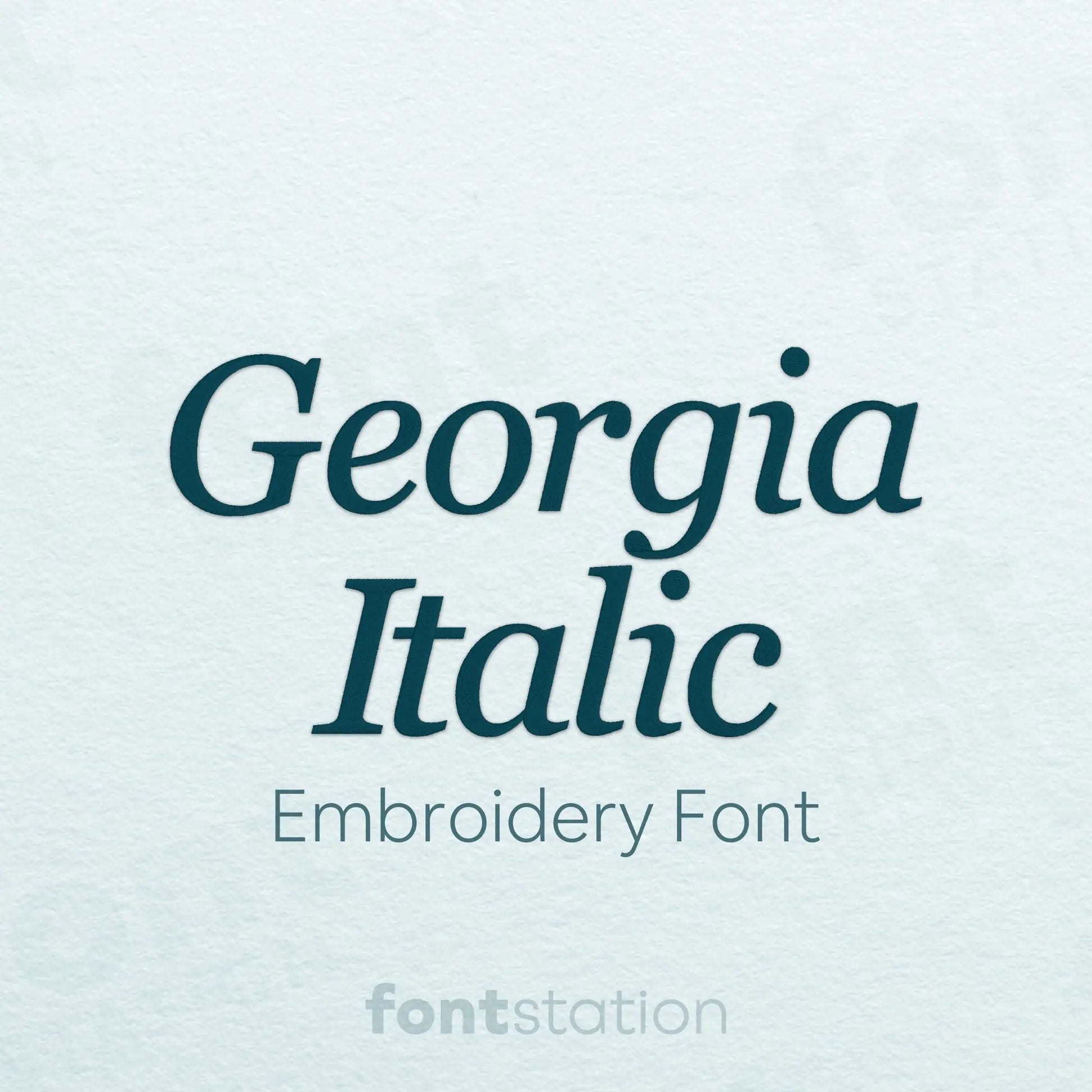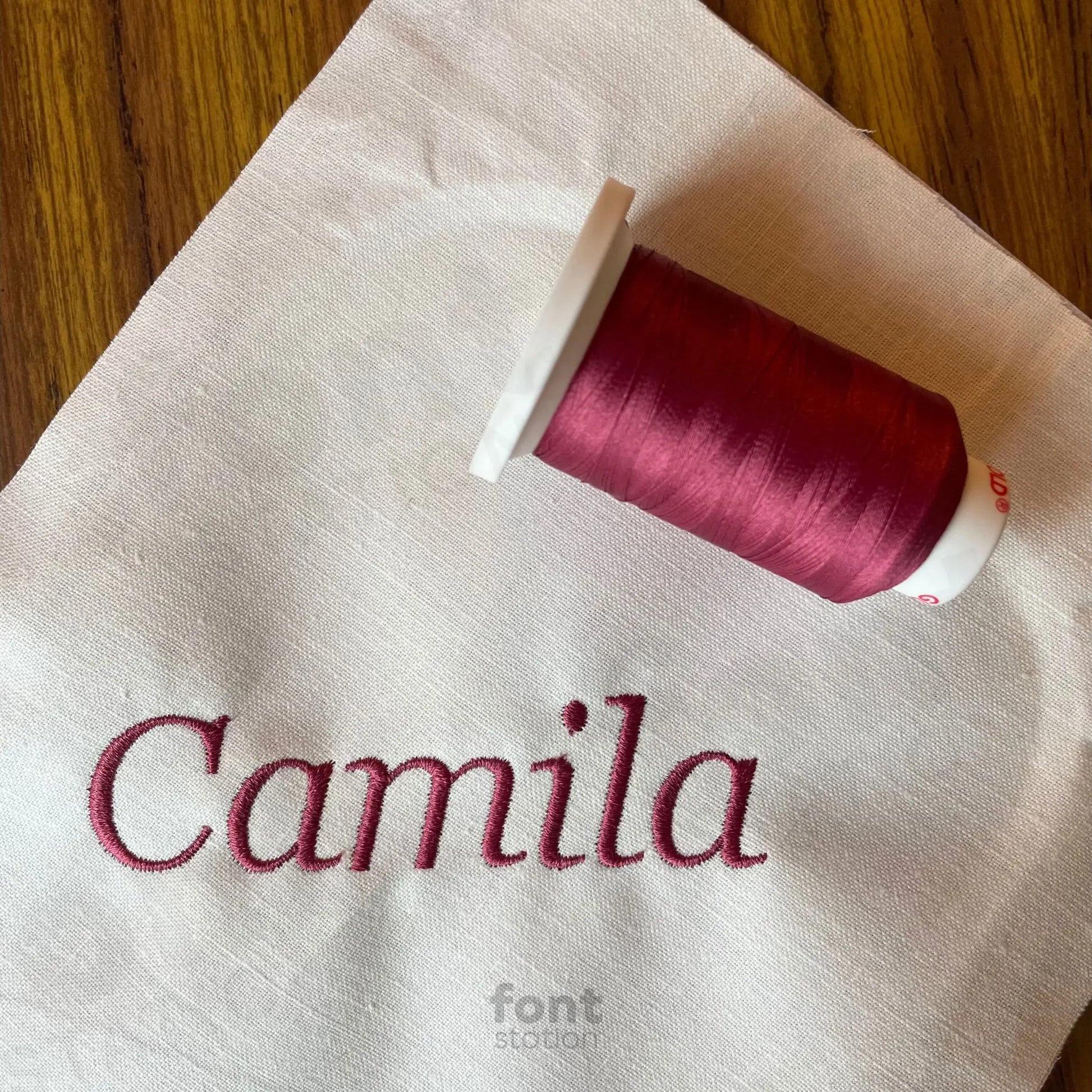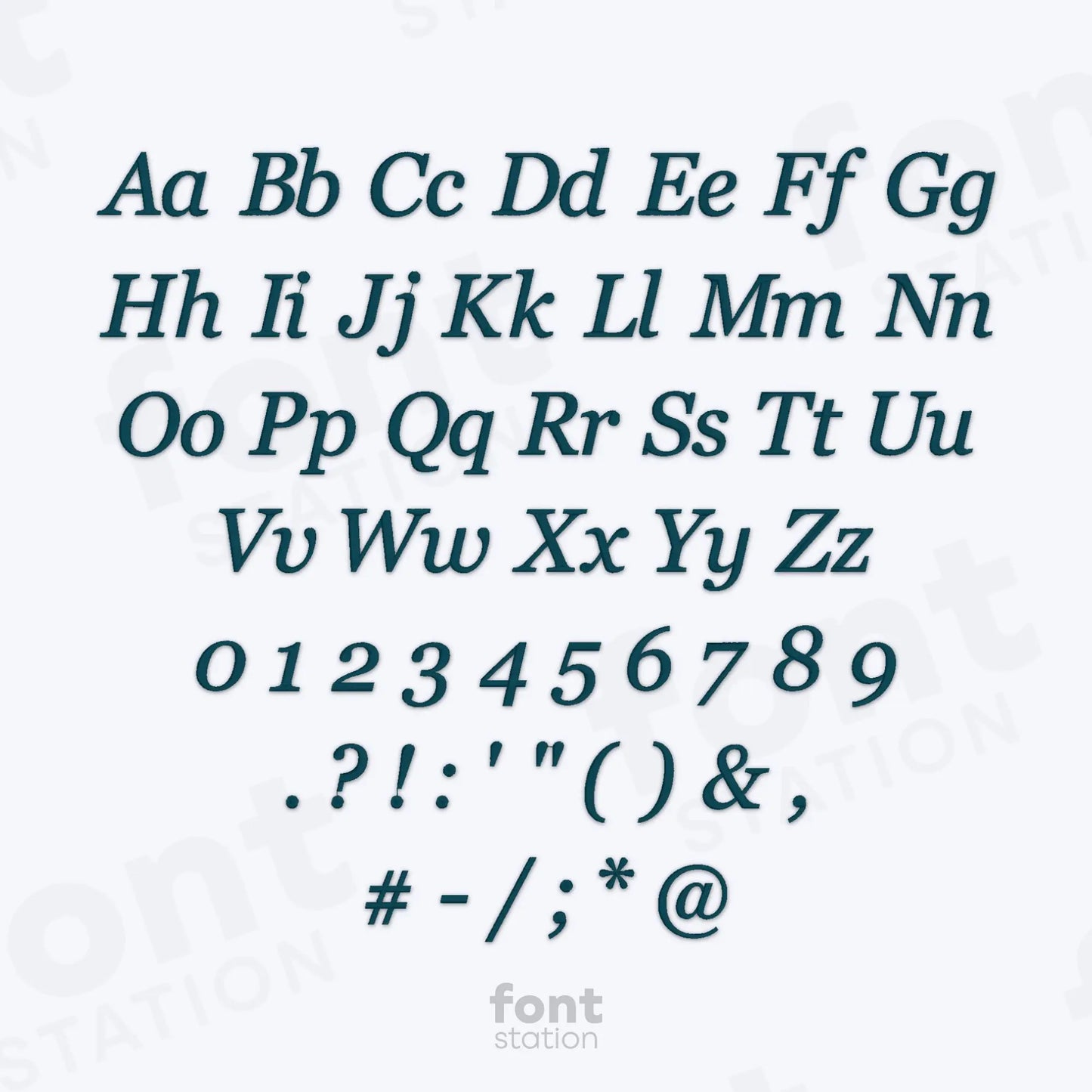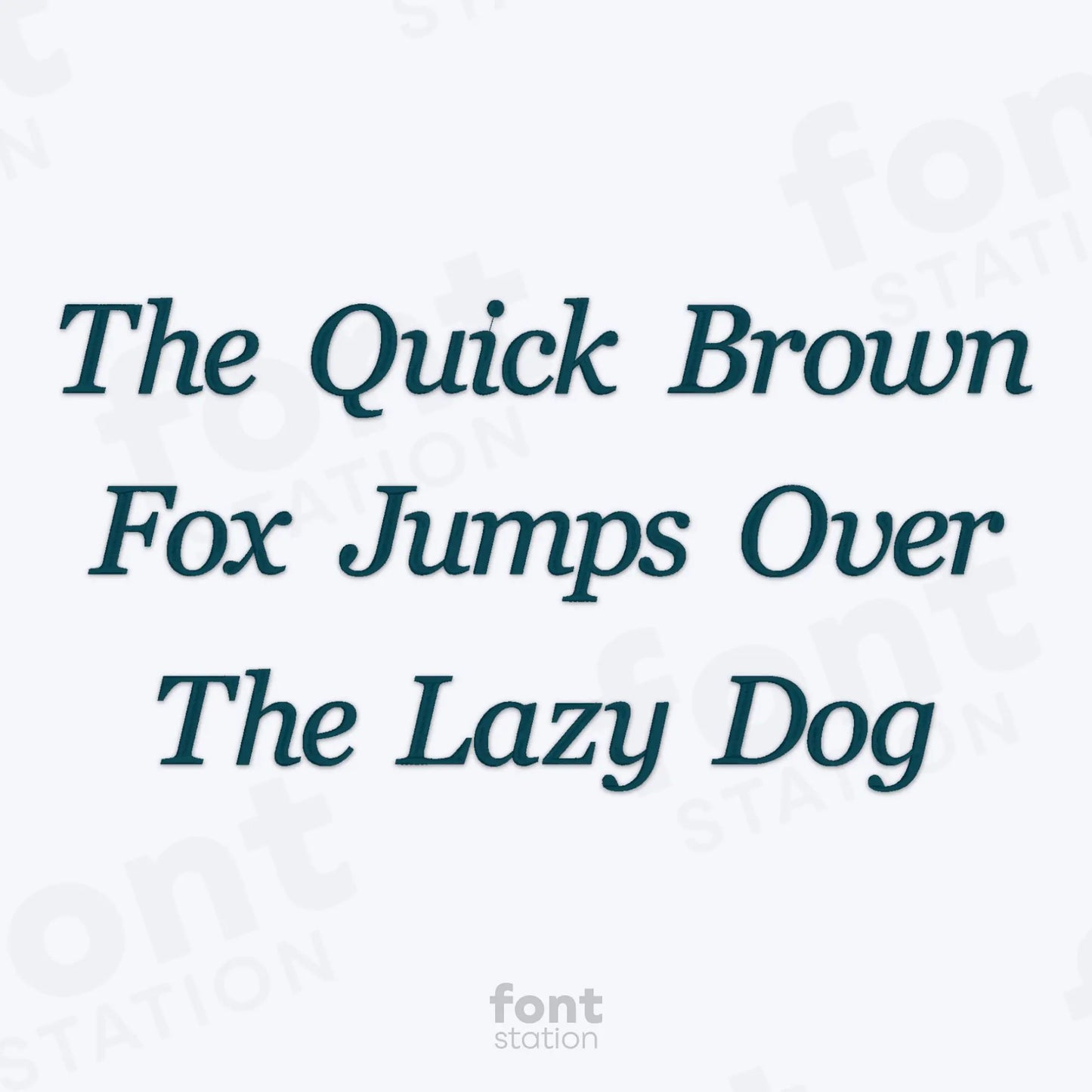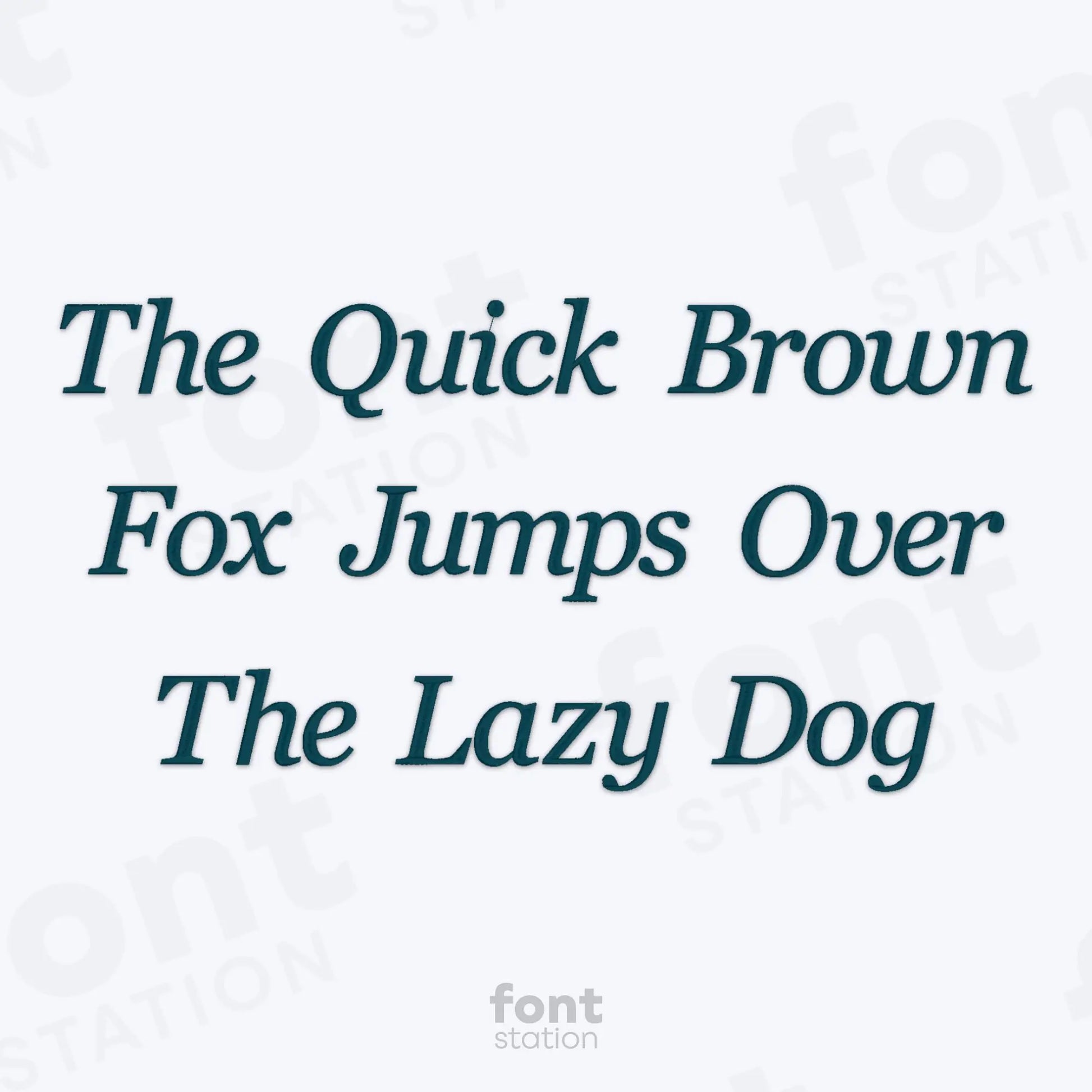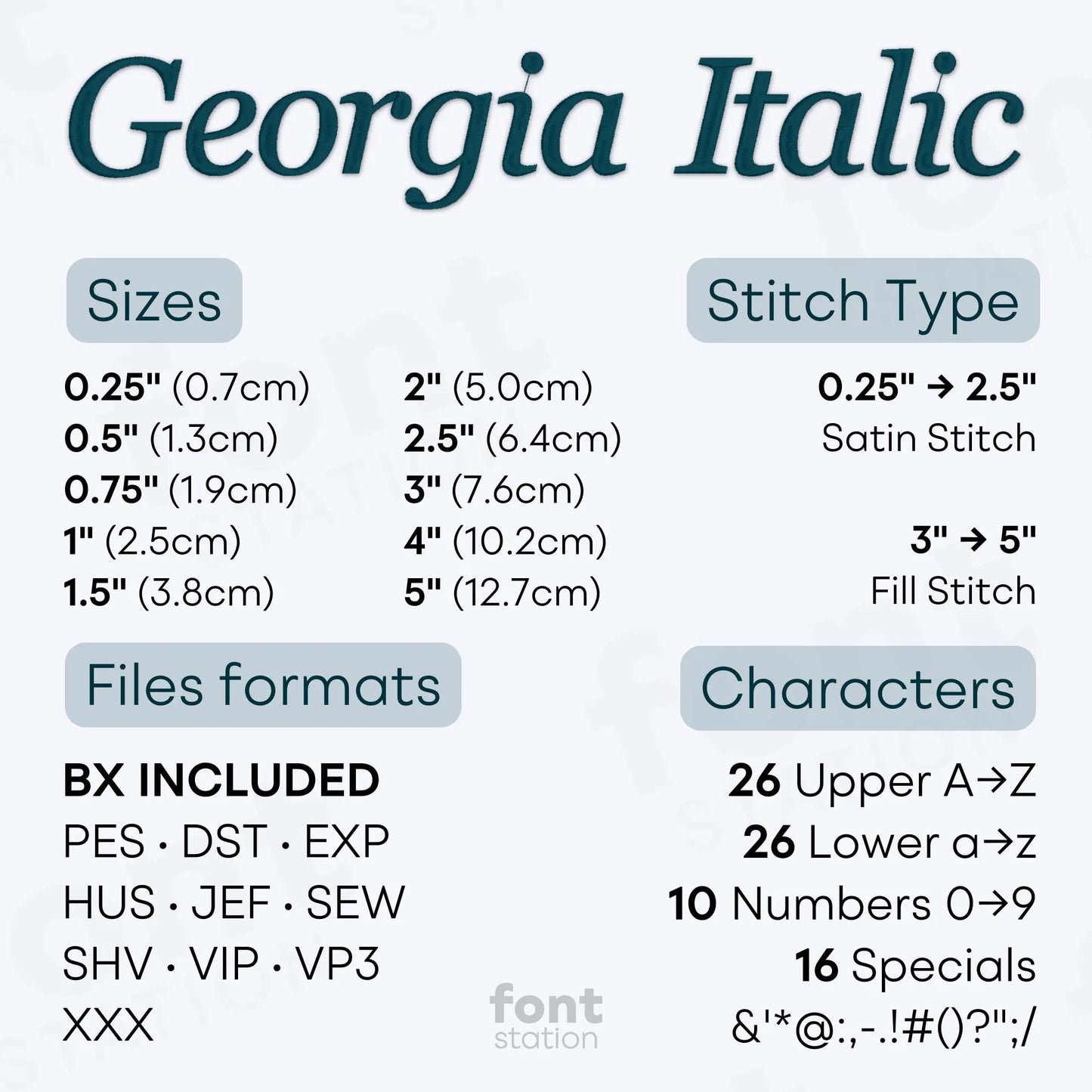
Georgia Italic Embroidery Font
Introducing our Georgia Italic embroidery font, an elegant serif alphabet with graceful letters that stitch beautifully on your embroidery machine. Perfect for classic designs and any refined project.
About the Georgia Italic Embroidery Font
Characters: 26 uppercase, 26 lowercase, 10 numbers und symbols & ' * @ : , - . ! # ( ) ? " ; /
Our Georgia Italic embroidery font brings a classic, elegant serif style to your embroidery projects.
This refined machine embroidery font features a graceful italic serif alphabet inspired by timeless typography, perfect for wedding details, monograms, initials, quotes, and sophisticated embroidery designs. With slanted letters and elegant curves, it adds a touch of classic charm to any project.